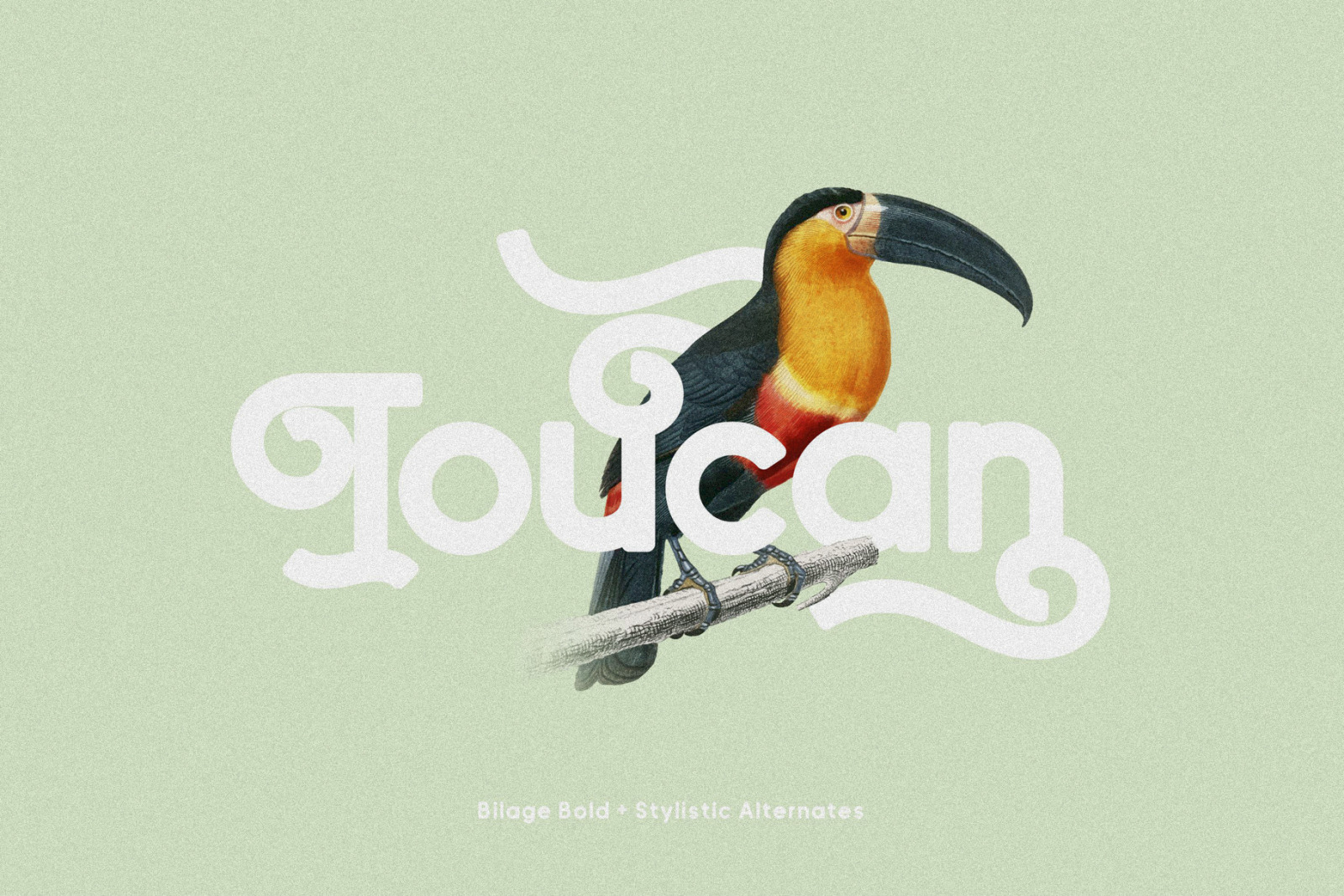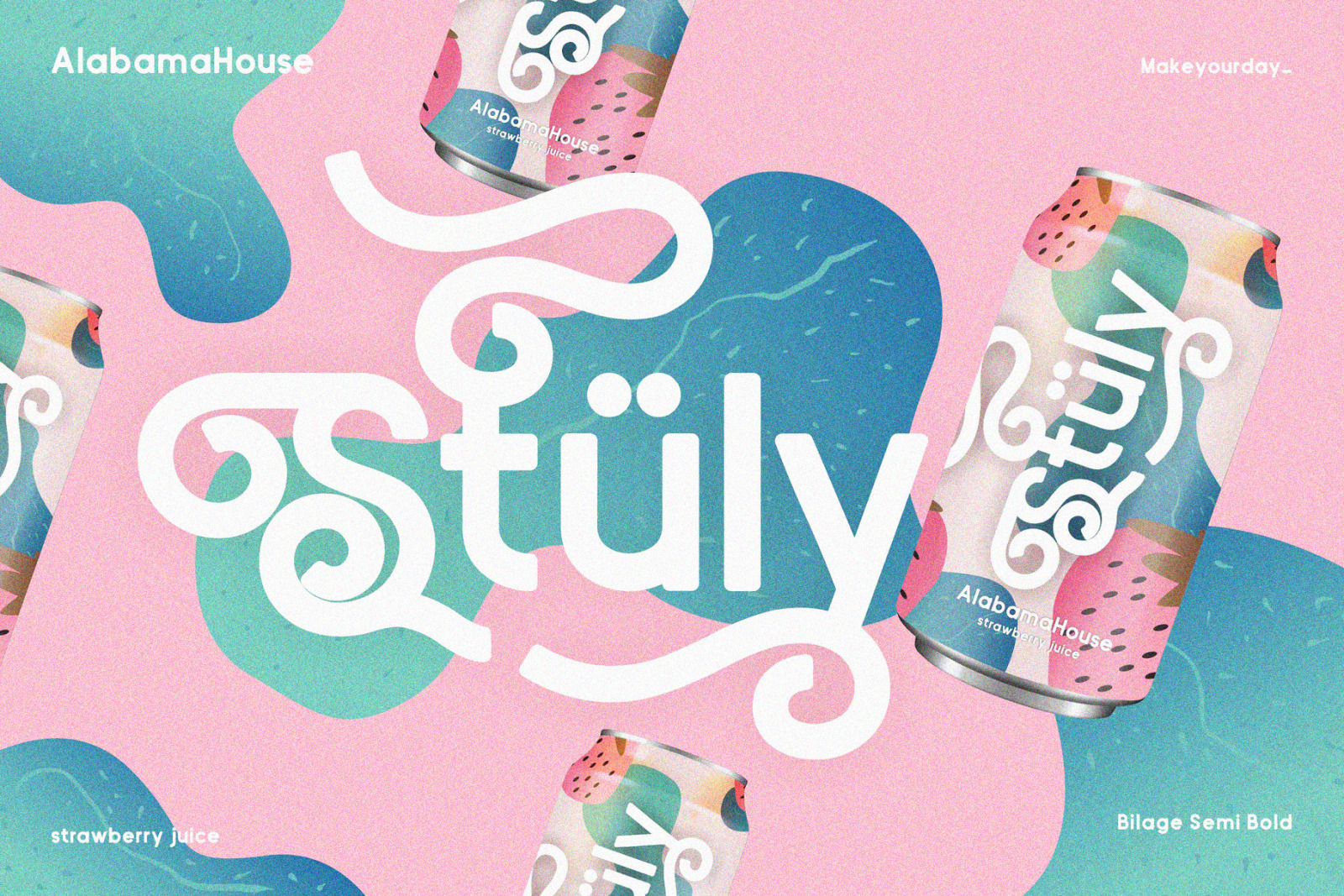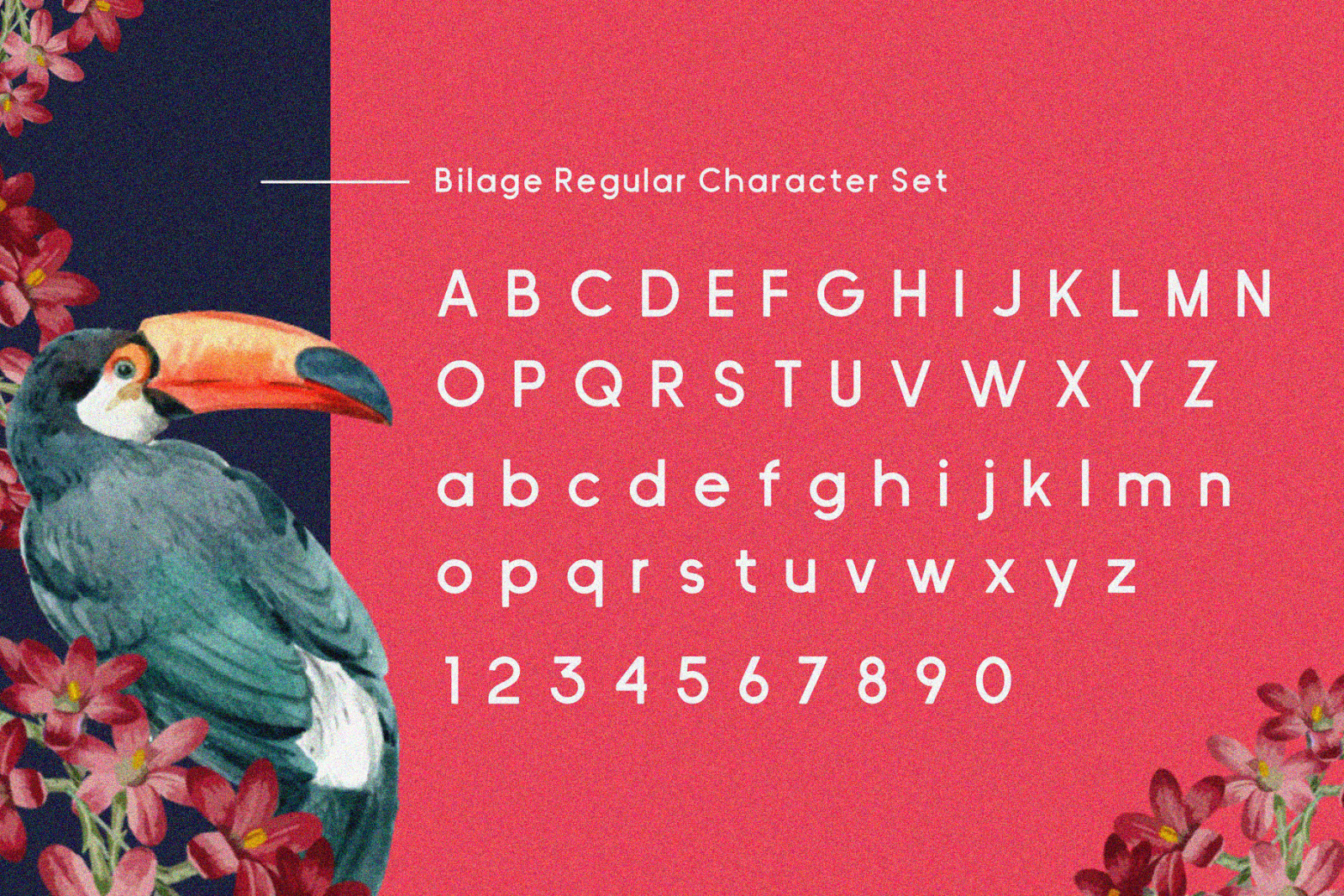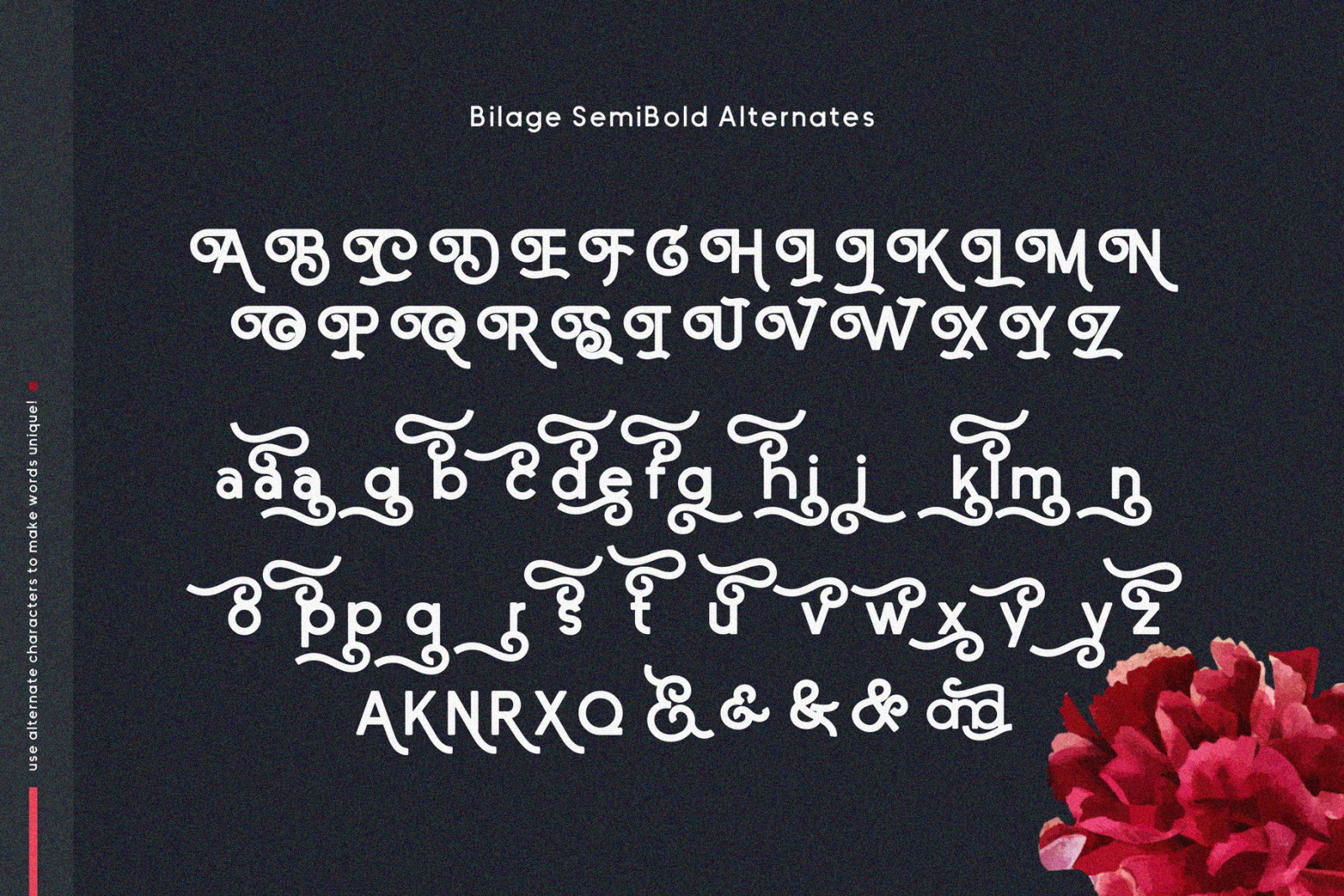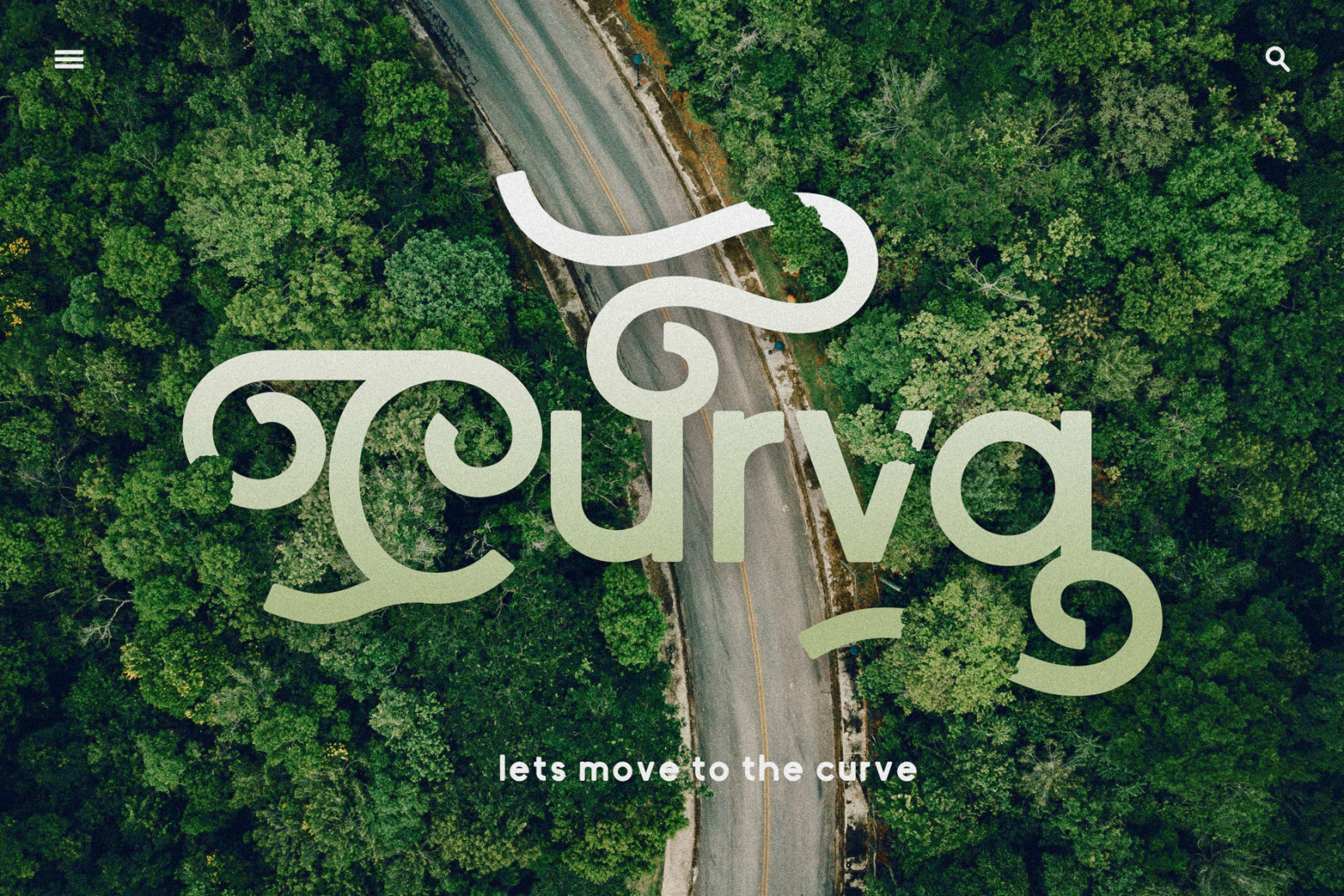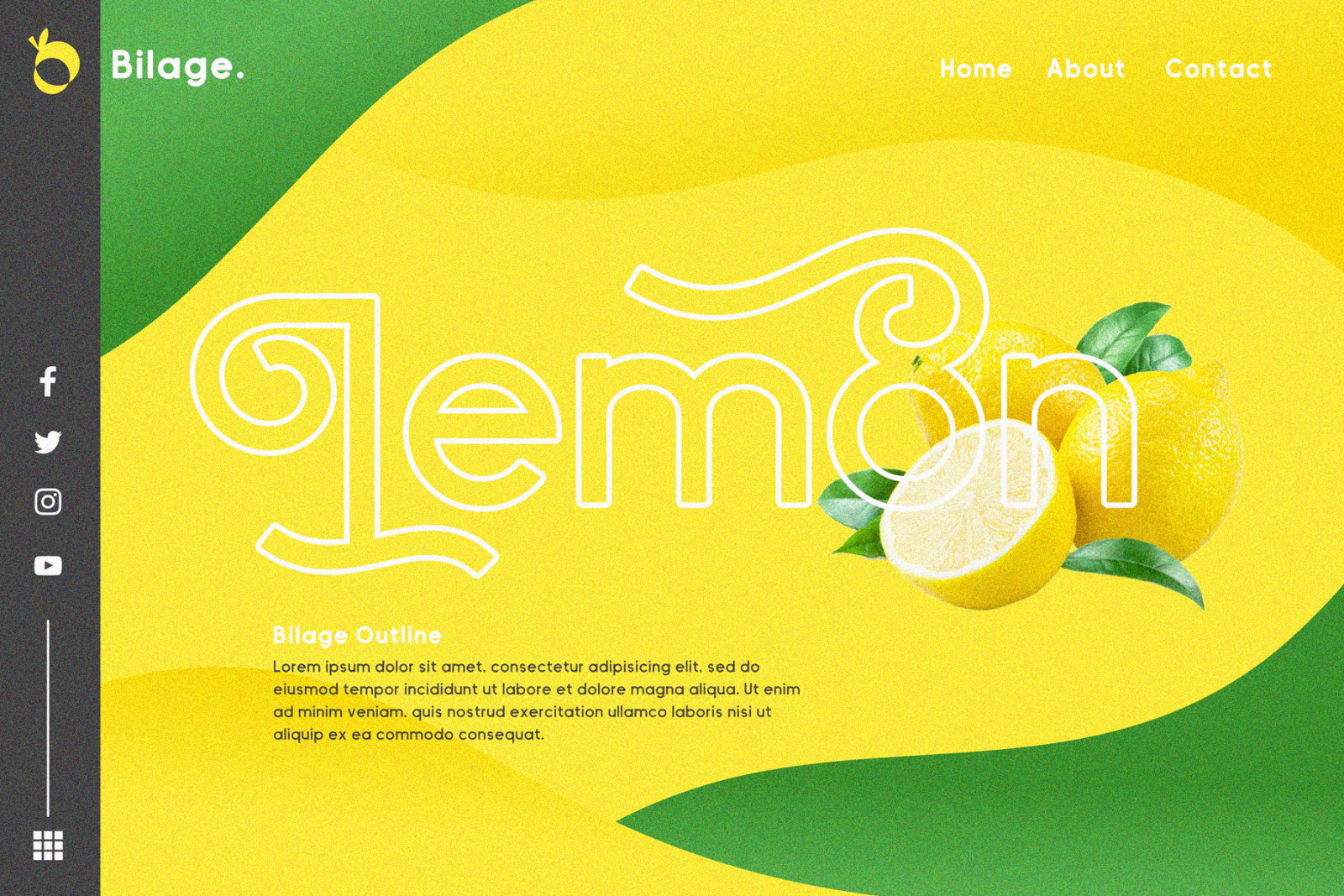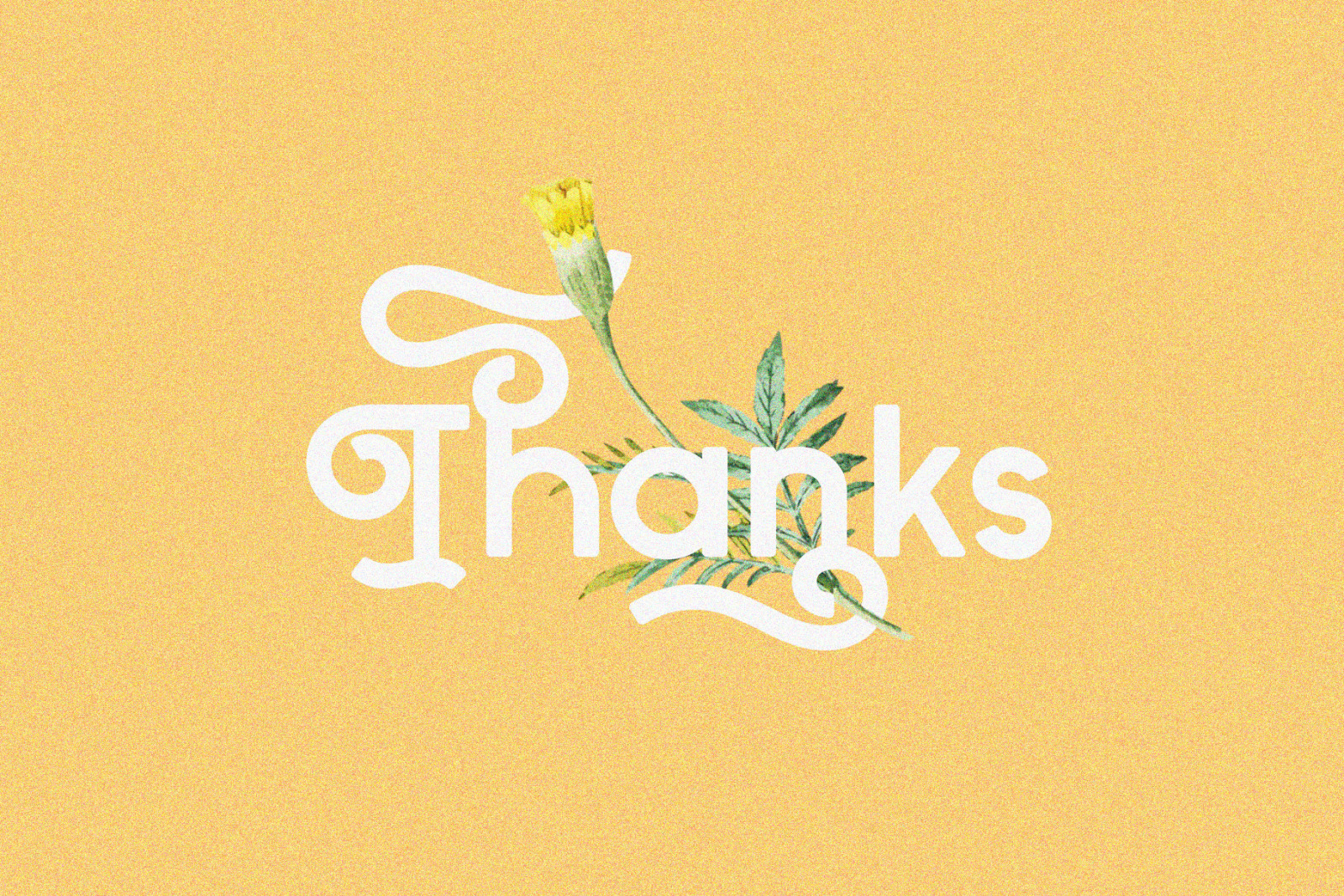
Bilage Font
Meet Bilage - a simple, elegant, and modern font that effortlessly blends sophistication and simplicity. Easily toggle between a straightforward and complex typeface with the use of alternate characters.
Ideal for headlines, logo branding, quotes, posters, products, and more, Bilage brings versatility and contemporary style to your design projects.